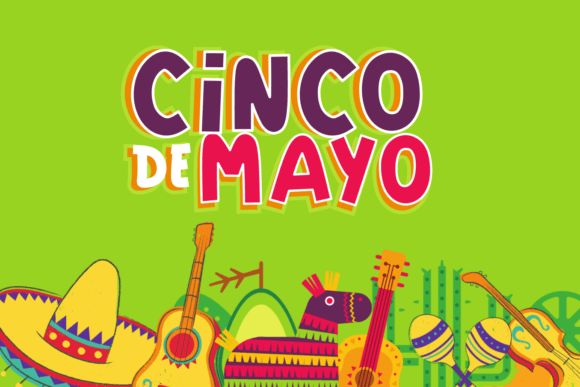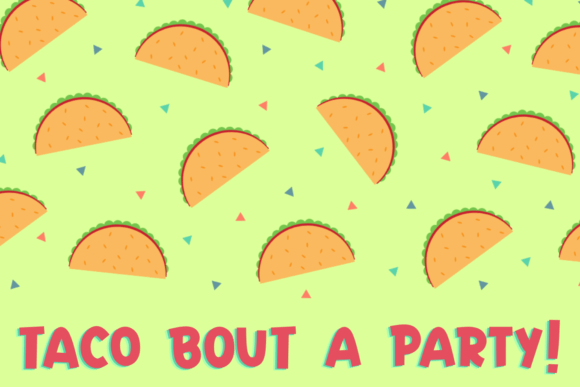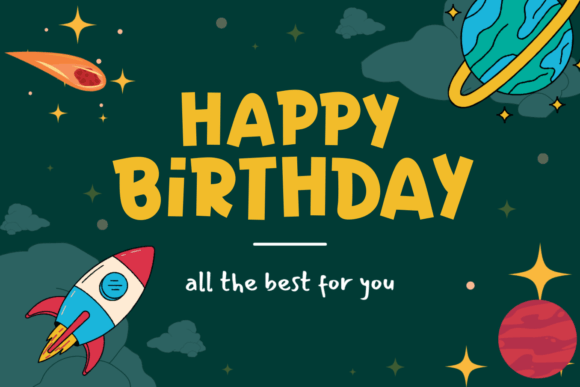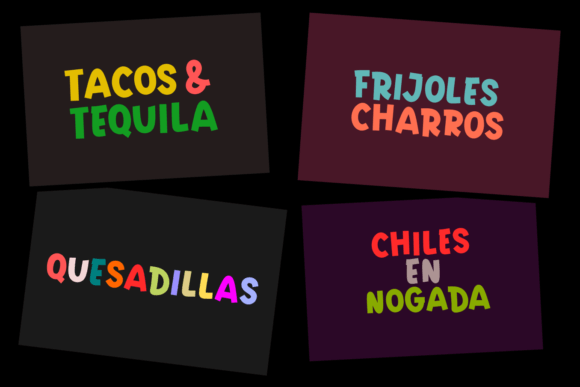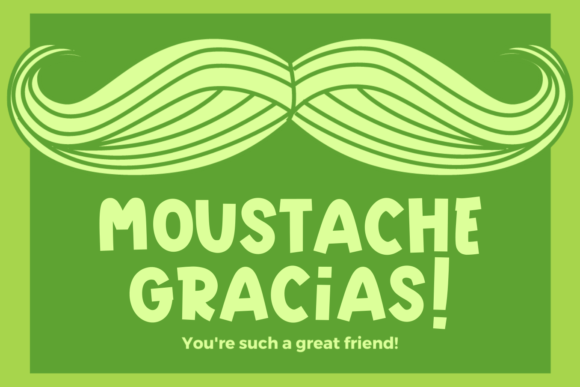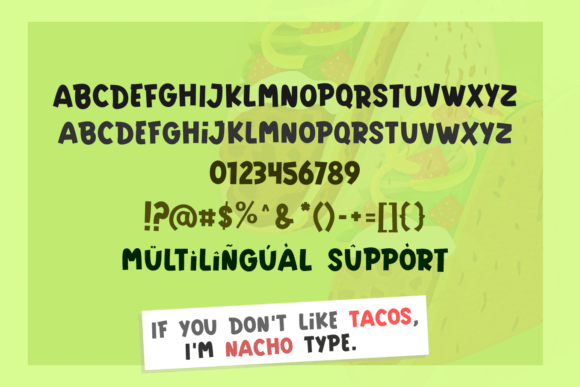
Crispy Tacos Font: The Perfect Addition to Your Font Library
Are you a designer or crafter looking for a fun and cheerful display font to add some excitement to your projects? Look no further than Crispy Tacos Font! This bold and simple characters typeface is a great collection to have in your font library, and is sure to help you express your creative and playful design ideas.
What is Crispy Tacos Font?
Crispy Tacos Font is a display font designed to make a statement. Its bold and cheerful characters are perfect for adding a touch of fun and personality to any design project. Whether you’re working on a logo, a poster, or a social media graphic, Crispy Tacos Font is sure to grab attention and make your design stand out.
Key Features of Crispy Tacos Font
So what makes Crispy Tacos Font so special? Here are just a few of its key features:
• Bold and Simple Characters: Crispy Tacos Font features bold and simple characters that are easy to read and understand. This makes it perfect for use in headlines, titles, and other display text.
• Fun and Cheerful: The font has a fun and cheerful vibe that’s perfect for designs that need a bit of personality. Whether you’re working on a children’s project or a design for a fun and playful brand, Crispy Tacos Font is a great choice.
• Highly Versatile: Crispy Tacos Font can be used in a wide range of design projects, from logos and posters to social media graphics and more.
How to Use Crispy Tacos Font
So how can you use Crispy Tacos Font in your design projects? Here are a few ideas to get you started:
• Logos and Branding: Use Crispy Tacos Font to create a bold and eye-catching logo for your brand. The font’s simple characters make it easy to read and understand, even at small sizes.
• Posters and Flyers: Add some excitement to your posters and flyers with Crispy Tacos Font. The font’s bold characters are perfect for headlines and titles, and can help grab attention.
• Social Media Graphics: Use Crispy Tacos Font to add some personality to your social media graphics. The font’s fun and cheerful vibe is perfect for creating engaging and shareable content.
Tips for Getting the Most Out of Crispy Tacos Font
Here are a few tips for getting the most out of Crispy Tacos Font:
• Experiment with Different Sizes: Crispy Tacos Font looks great at a wide range of sizes, from small and subtle to large and bold. Experiment with different sizes to find the one that works best for your design.
• Pair it with Other Fonts: Crispy Tacos Font pairs well with a wide range of other fonts. Try pairing it with a simple sans-serif font for a bold and modern look.
• Use it to Add Emphasis: Crispy Tacos Font is perfect for adding emphasis to your design. Use it to highlight important information or to draw attention to a specific element.
Font Name Crispy Tacos Font
Author Deedeetype
Crispy Tacos Font is a fun and cheerful display font that’s perfect for adding some excitement to your design projects. Its bold and simple characters make it easy to read and understand, and its highly versatile design makes it suitable for use in a wide range of projects. Whether you’re a designer or crafter, Crispy Tacos Font is a great addition to your font library.